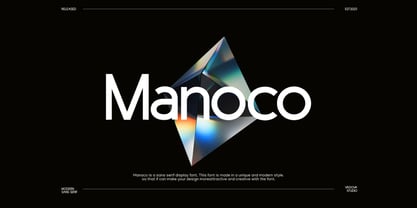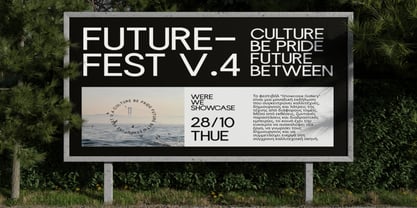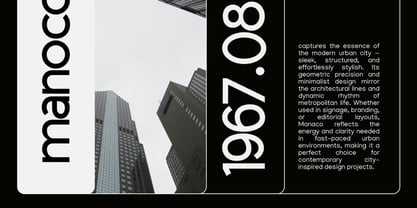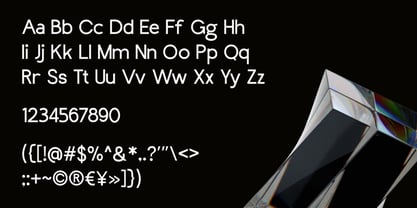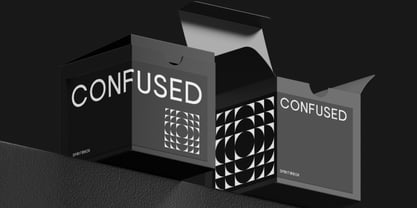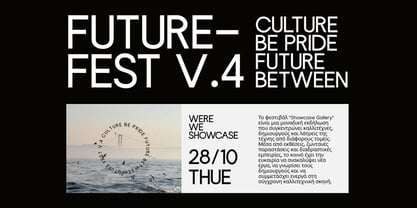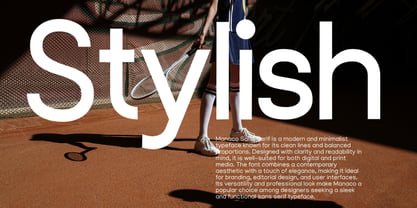
Manoco
Manoco is a modern sans serif display typeface built with clean geometry, balanced proportions, and a sleek contemporary structure. The letterforms feature smooth curves, consistent stroke weight, and precise spacing that create a sharp, professional, and highly legible appearance across headlines and layouts. Relevance and Use Cases is perfect for tech branding, startup identities, UI/UX interfaces, app and web design, corporate presentations, posters, product packaging, editorial headlines, modern advertising, and clean minimal layouts that require clarity with a contemporary and professional tone.